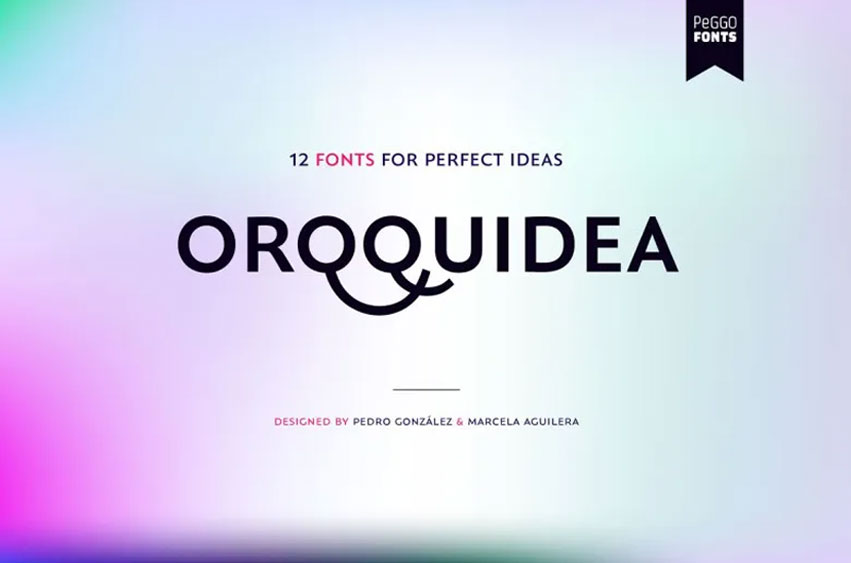
Orqquidea Font
Orqquidea Font Low contrast, clear Roman Sans Serif font featuring capitals with classical Capitalis Monumentalis proportions with uniform, contemporary SmallCaps. A subtle touch of script gives it a soft and less squishy feeling for a natural, relaxed appearance. This design was conceptualized after 2013’s research on Roman Schemme, from which other roman typefaces such as Legan were drawn inspiration for.
Branded content that has contemporary or artistic merit. Perfect for branding fashion and corporate goals, book and magazine headlines and cosmetic label design.